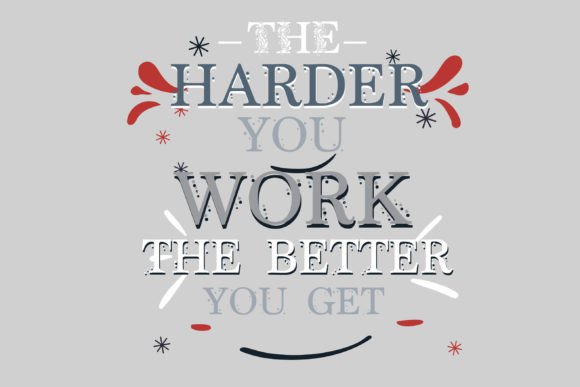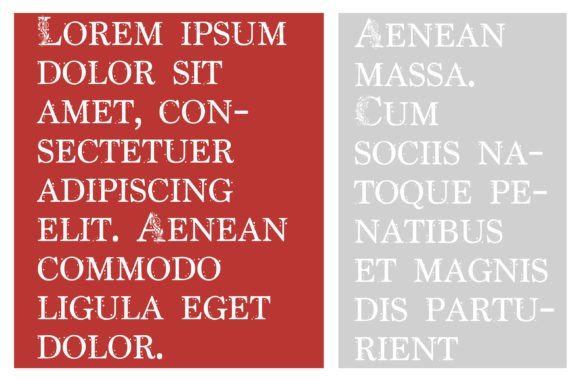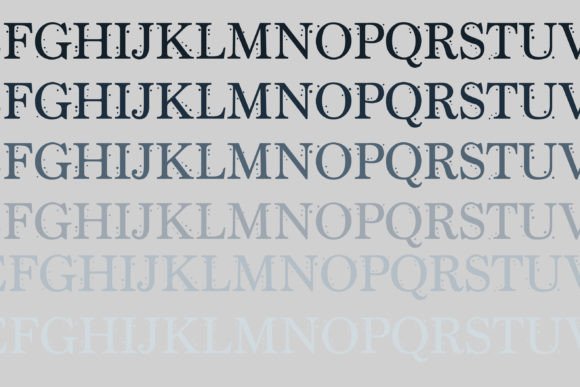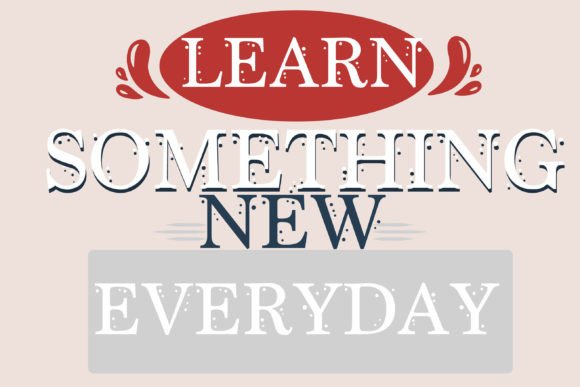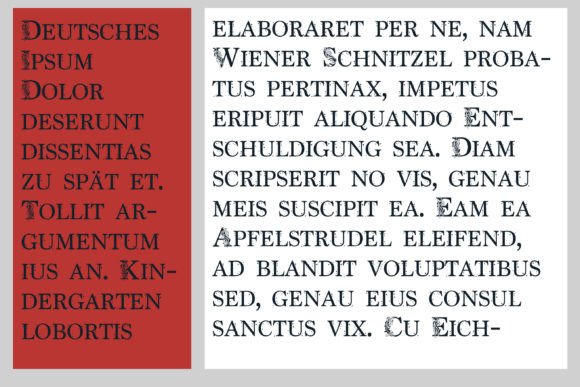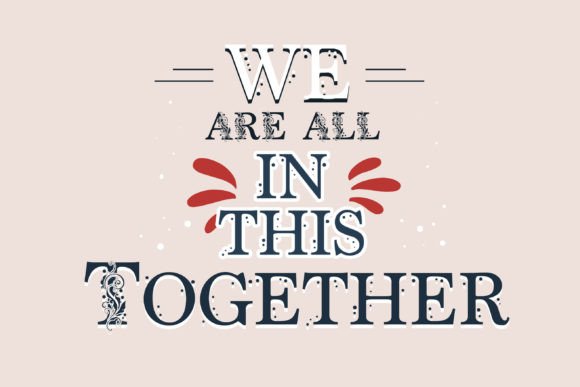
The Bijoux Berry Font: A Beautiful Christmas Flourish for Your Designs
I still remember the time I was working on a Christmas project for a client, and I just couldn’t find the right font to capture the festive spirit. I had tried countless serif and sans-serif fonts, but none of them seemed to convey the elegance and whimsy I was looking for. That’s when I stumbled upon the Bijoux Berry Font, and it instantly became my go-to font for the project. In this article, I’ll share my experience with this beautiful font, its features, and how to use it to elevate your designs.
A Closer Look at Bijoux Berry Font
Bijoux Berry Font is a hand-crafted serif font that features an uppercase that is very elaborate, sporting a beautiful Christmas flourish. It’s perfect for invitations, greeting cards, and other items where you want to add a touch of elegance and sophistication. The font is designed to look like it was written by hand, giving it a personal and unique feel.
My Honest Review of Bijoux Berry Font
Here’s what I love about Bijoux Berry Font:
- ✨ Beautiful Christmas flourish: The uppercase letters are adorned with a stunning Christmas flourish that adds a touch of festivity to any design.
- ✅ Hand-crafted feel: The font has a personal and unique feel that makes it perfect for projects where you want to add a human touch.
- 🎉 Versatile: Bijoux Berry Font can be used for a variety of purposes, from formal invitations to casual greeting cards.
However, I did notice a few quirks:
- 🤔 Limited use of lowercase letters: The font’s lowercase letters are not as elaborate as the uppercase letters, which can make it less suitable for body text.
- ⚠️ Requires careful kerning: The font’s unique feel can make kerning a bit tricky, especially when using it for longer texts.
The Story Behind Bijoux Berry Font
Bijoux Berry Font was designed by a talented font designer who wanted to create a font that captured the magic of Christmas. The designer was inspired by traditional Christmas fonts and wanted to create a font that was both elegant and whimsical. The result is a beautiful font that’s perfect for adding a touch of festivity to your designs.
| What is Bijoux Berry Font? | Bijoux Berry Font is a hand-crafted serif font that features an uppercase that is very elaborate, sporting a beautiful Christmas flourish. |
| What is Bijoux Berry Font used for? | Bijoux Berry Font is perfect for invitations, greeting cards, and other items where you want to add a touch of elegance and sophistication. |
| Is Bijoux Berry Font easy to read? | Yes, Bijoux Berry Font is easy to read, especially in larger sizes. |